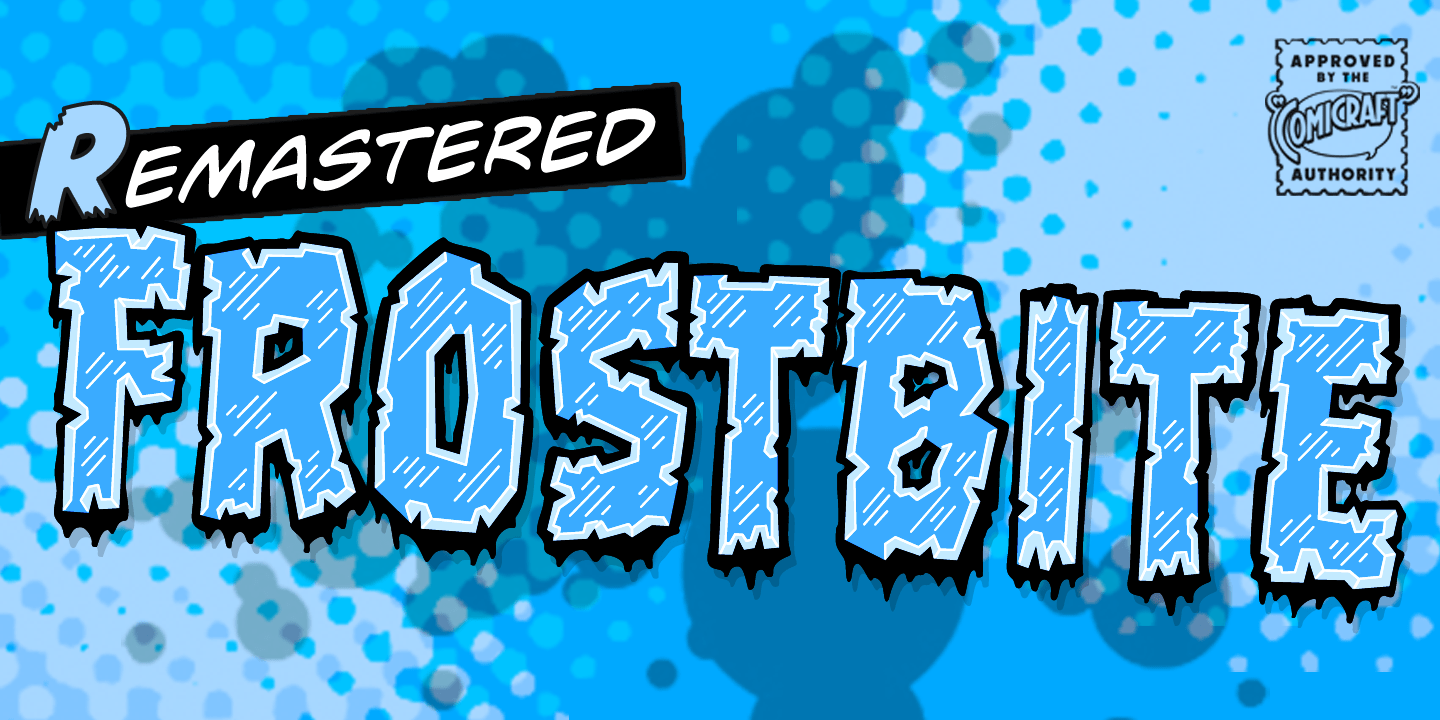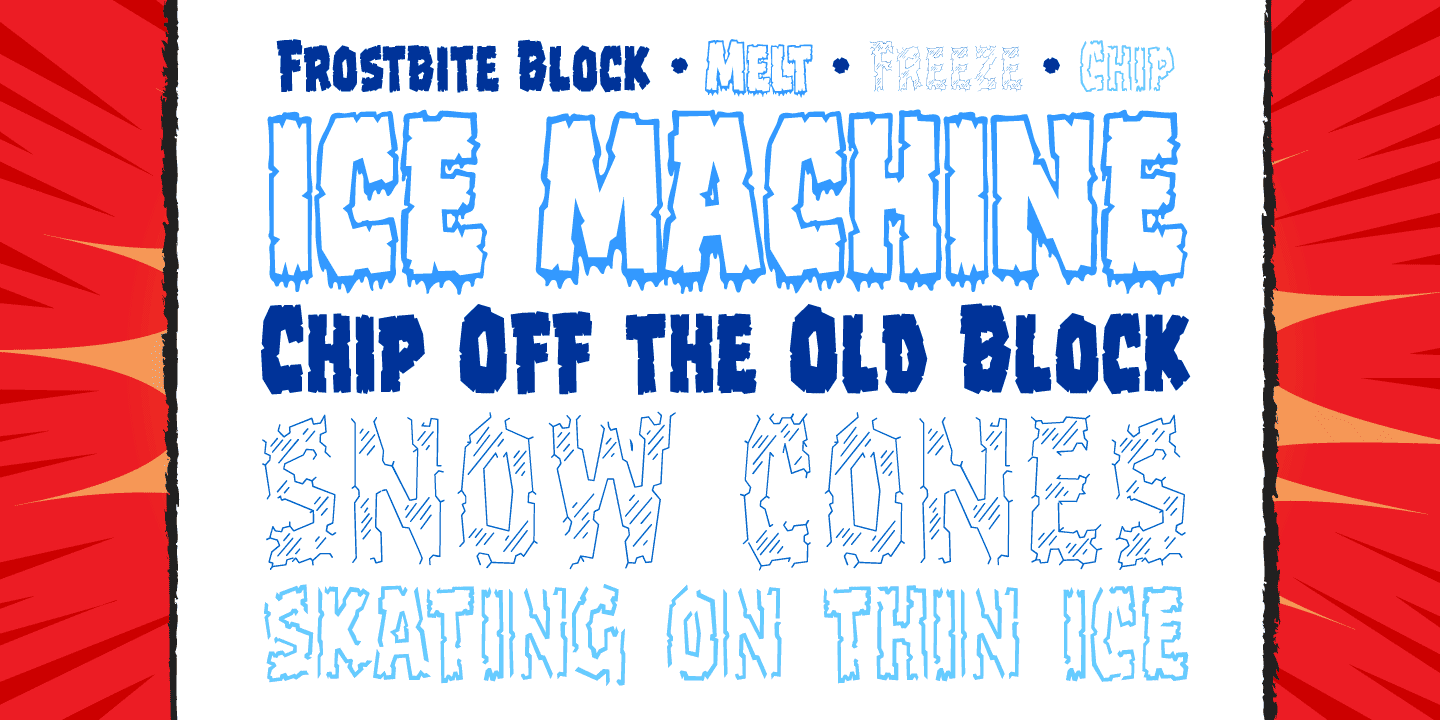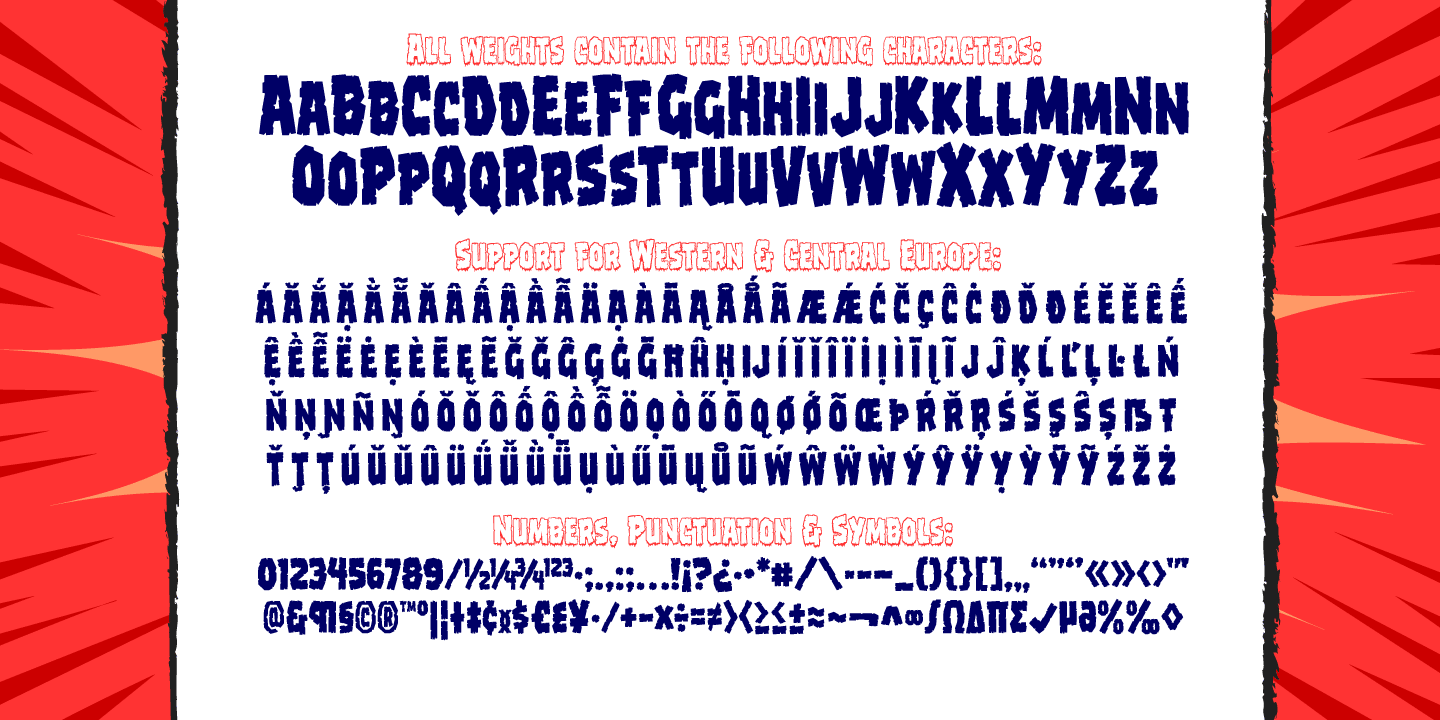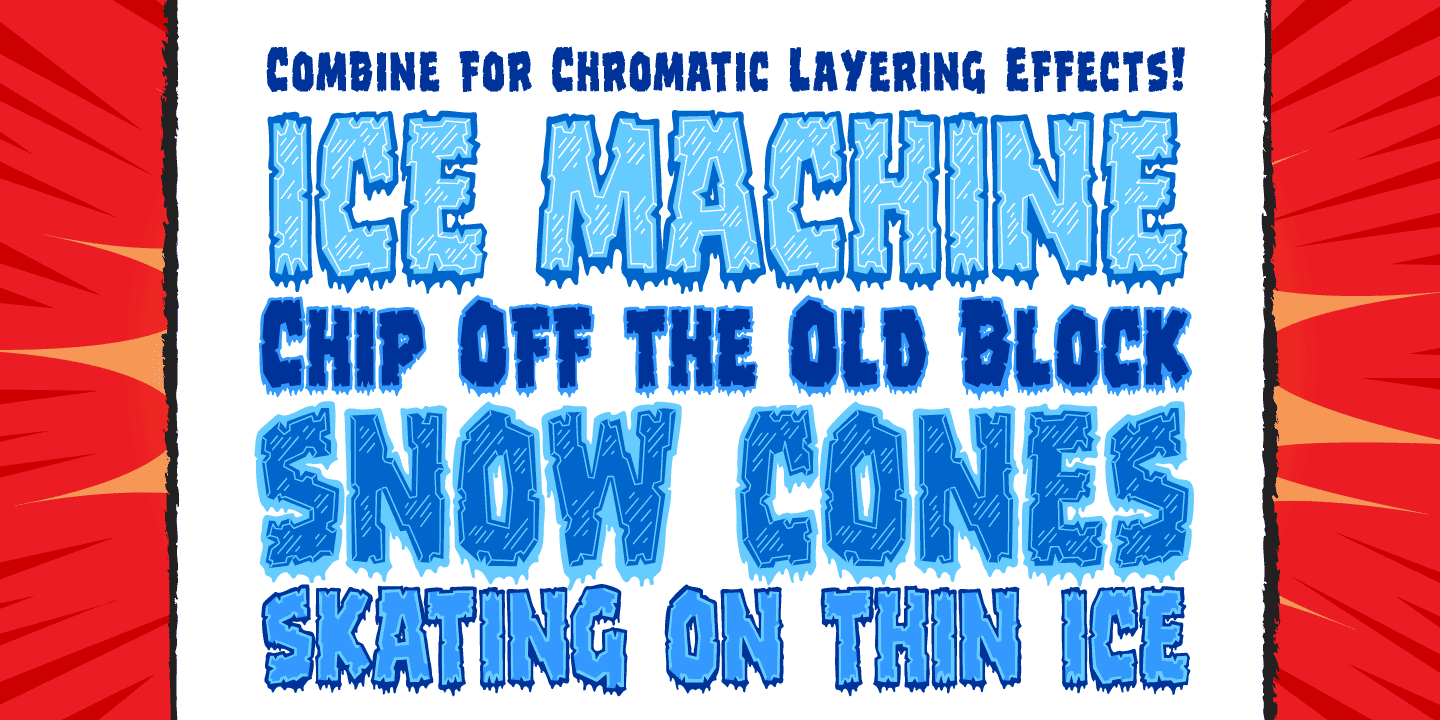
Frostbite
Font Family by Comicraft Fonts
If you're feeling a chill in your bones and the grass is a little crunchy under your feet after looking at this font, you might like to put your feet in warm water when you get home if to stave off a little Frostbite. This remastered font family is a chip off the old block, and will help you thaw out before your skin starts to freeze and flake. We recommend you melt Frostbite cubes in the warm water too to ensure you don't stick to the ice. We also recommend you don't lick the letterforms, as we know our customers are wont to do.
Now includes Color Font for use in Adobe CC applications!
Frostbite Block
Frostbite Chip
Frostbite Freeze
Frostbite Melt
Frostbite Color